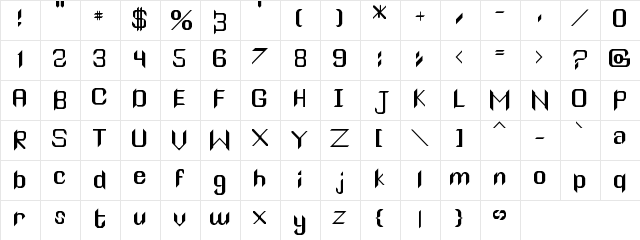
Sharp serif Regular
| Designer | Stephanie Yapeter |
Design Context for Sharp serif Typeface
Sharp serif brings classic typographic sensibility to the table — its serifs and measured letterforms reflect centuries of print heritage.